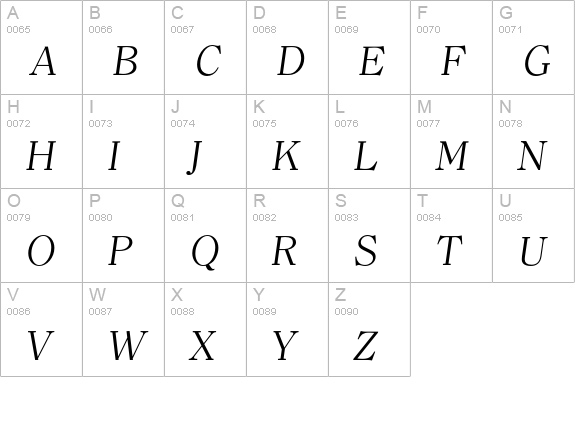
Clerface-LightIta Font Details
Clerface-LightIta is a graceful and elegant font that exudes sophistication and charm. Its delicate and flowing cursive style adds a touch of femininity and grace to any design project. The light weight of the font gives it a soft and airy quality, perfect for conveying a sense of elegance and refinement. This font is ideal for use in various design applications such as wedding invitations, greeting cards, branding materials, and more. Its versatility allows it to be paired with both serif and sans-serif fonts, making it a versatile addition to any designer's toolkit. Best of all, Clerface-LightIta is available for free download at FontsMarket.com, allowing designers to access this beautiful font without any cost. Don't miss out on the opportunity to elevate your designs with the timeless beauty of Clerface-LightIta.